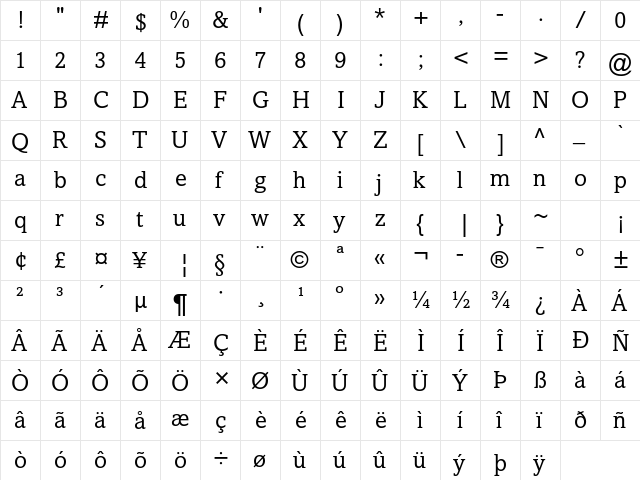
Amasis eText Regular Font Preview
Amasis eText Regular
Amasis eText Regular Font Details
| Designer | Ron Carpenter |
Design Context for Amasis eText Typeface
Amasis eText takes a measured approach to typography — its balanced proportions and neutral character make it a reliable workhorse for both digital and print work.